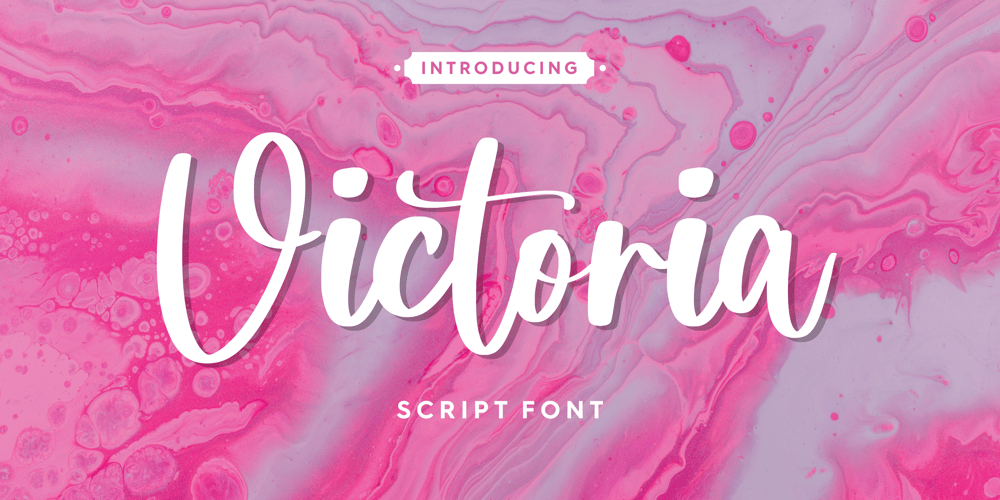
Victoria
Victoria font
Victoria Font Family was designed by Restu Angga and published by Balpirick. Victoria contains 1 styles and family package options. Victoria embodies fun, quirkiness and authenticity. This enchanting handwritten font will turn any creative idea into a true standout.